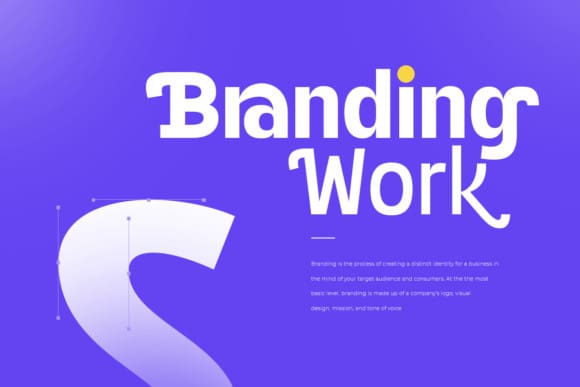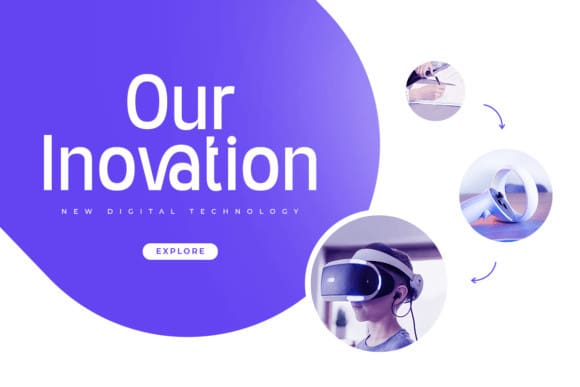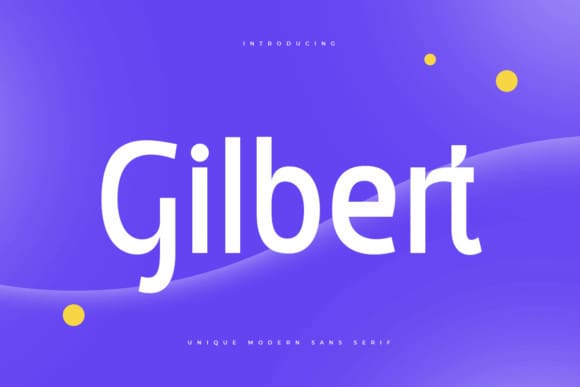
Gilbert Font
Gilbert Font is a bold and assertive sans serif font. No matter the topic, this font will be an incredible asset to your fonts’ library, as it has the potential to elevate any creation.